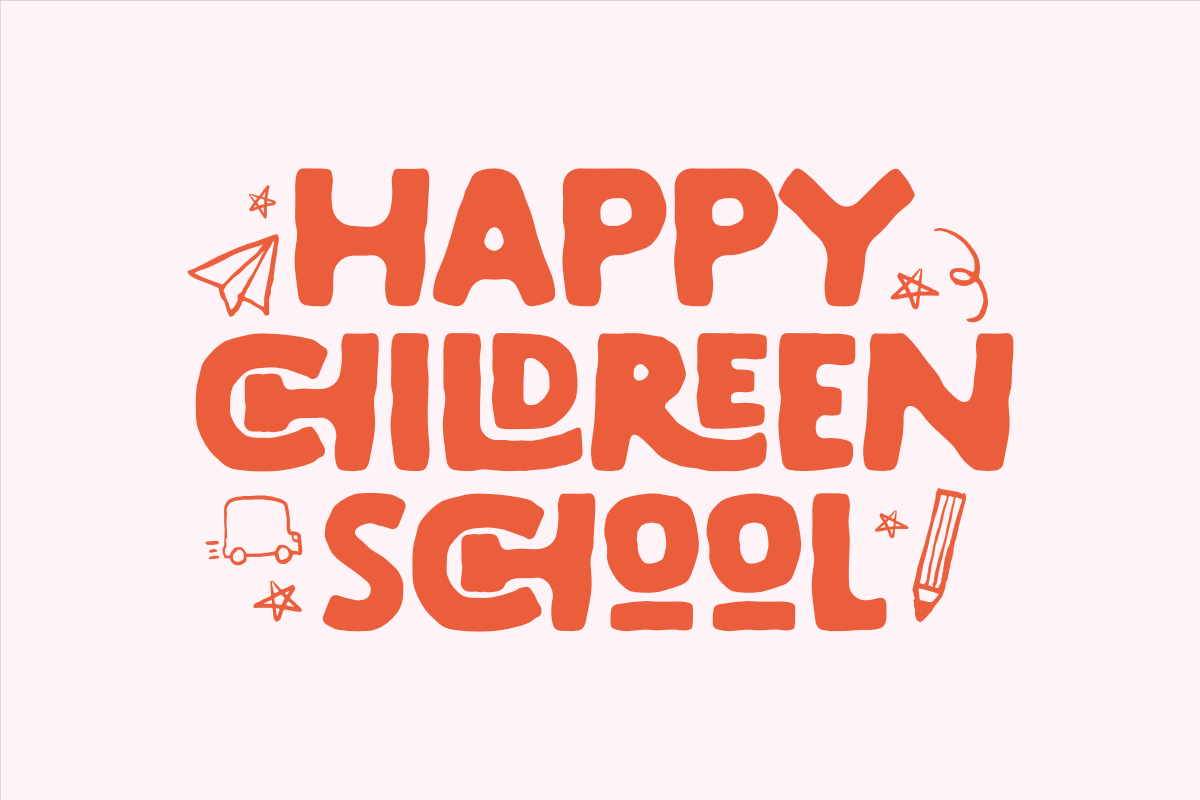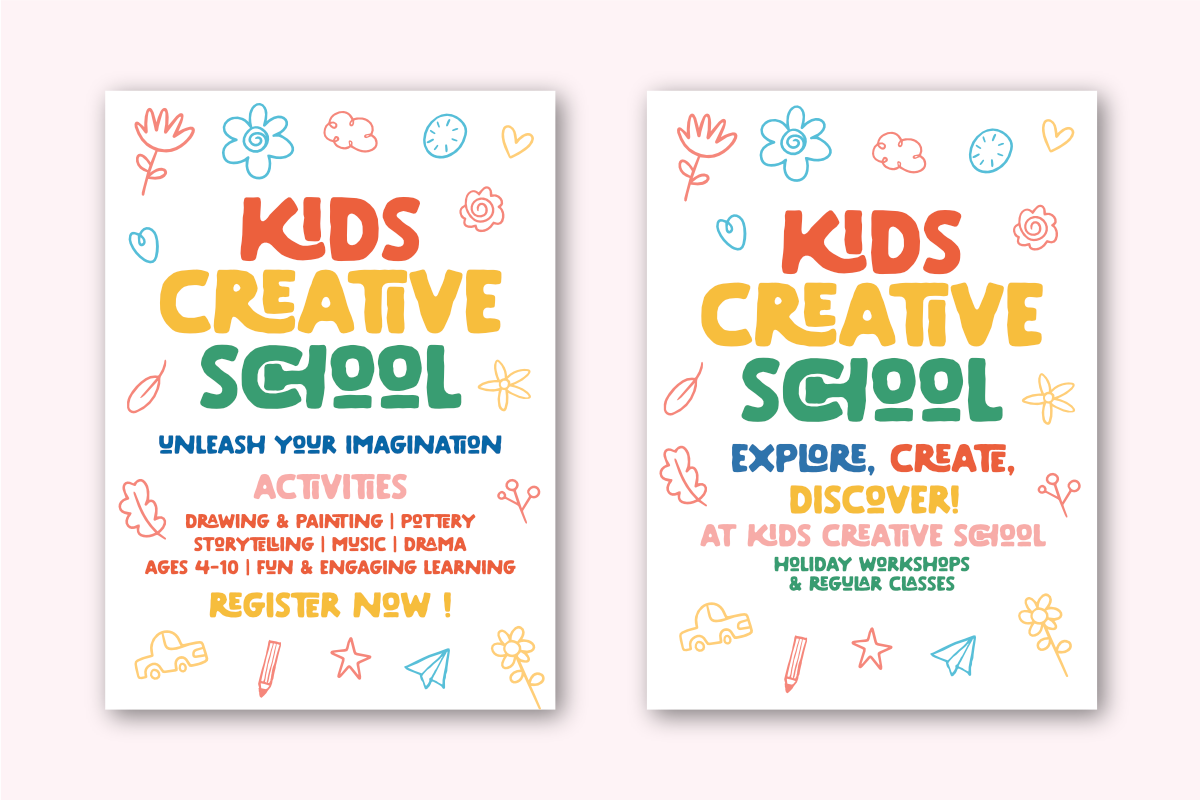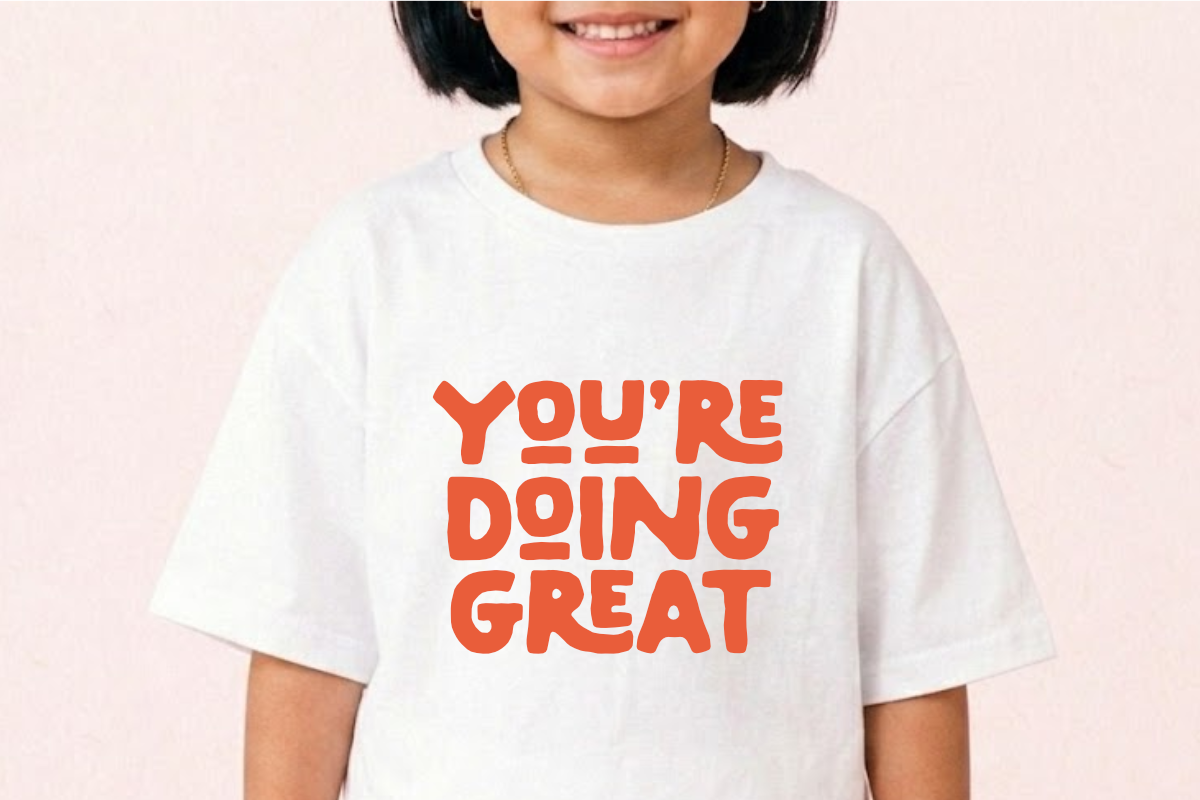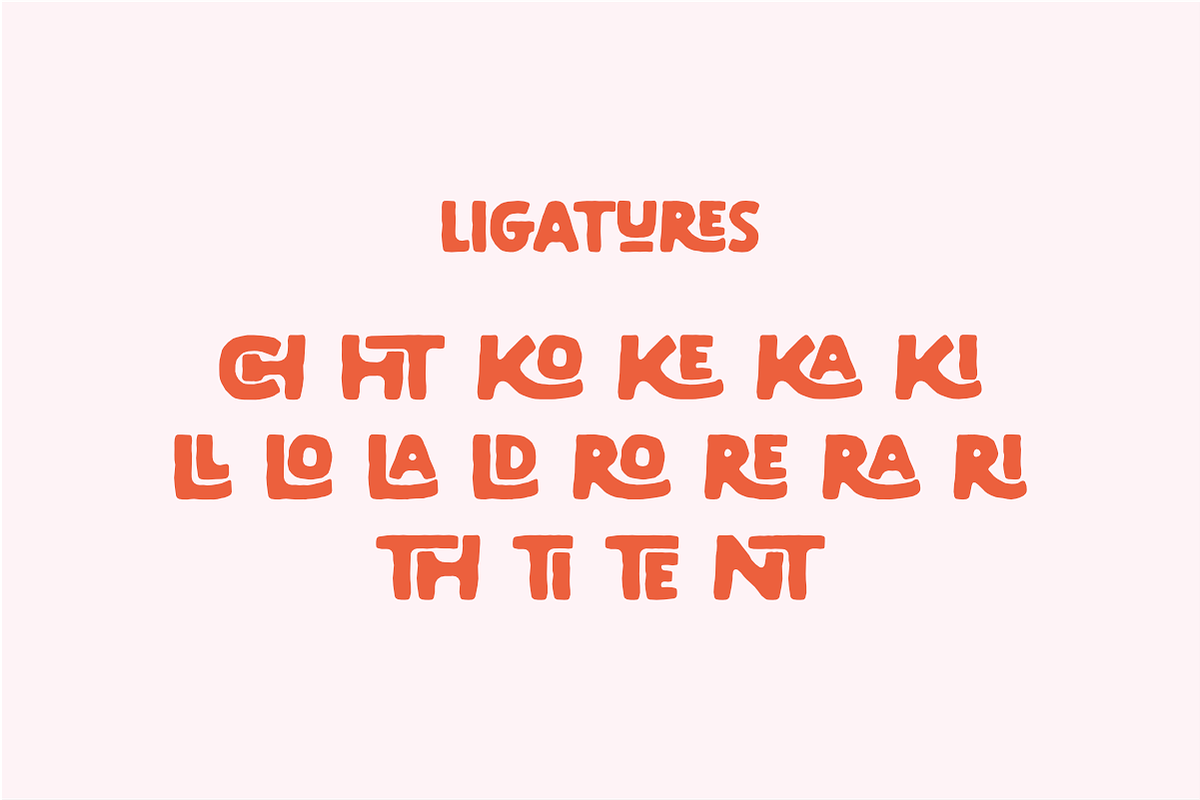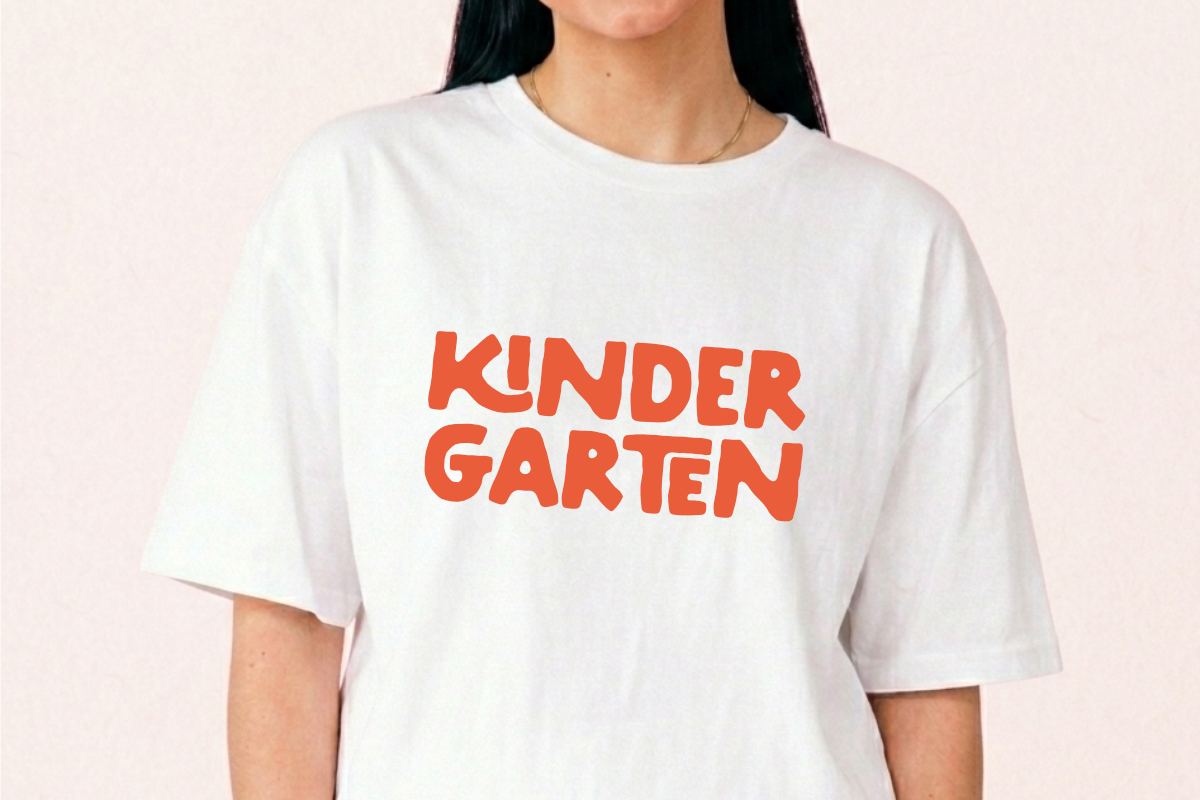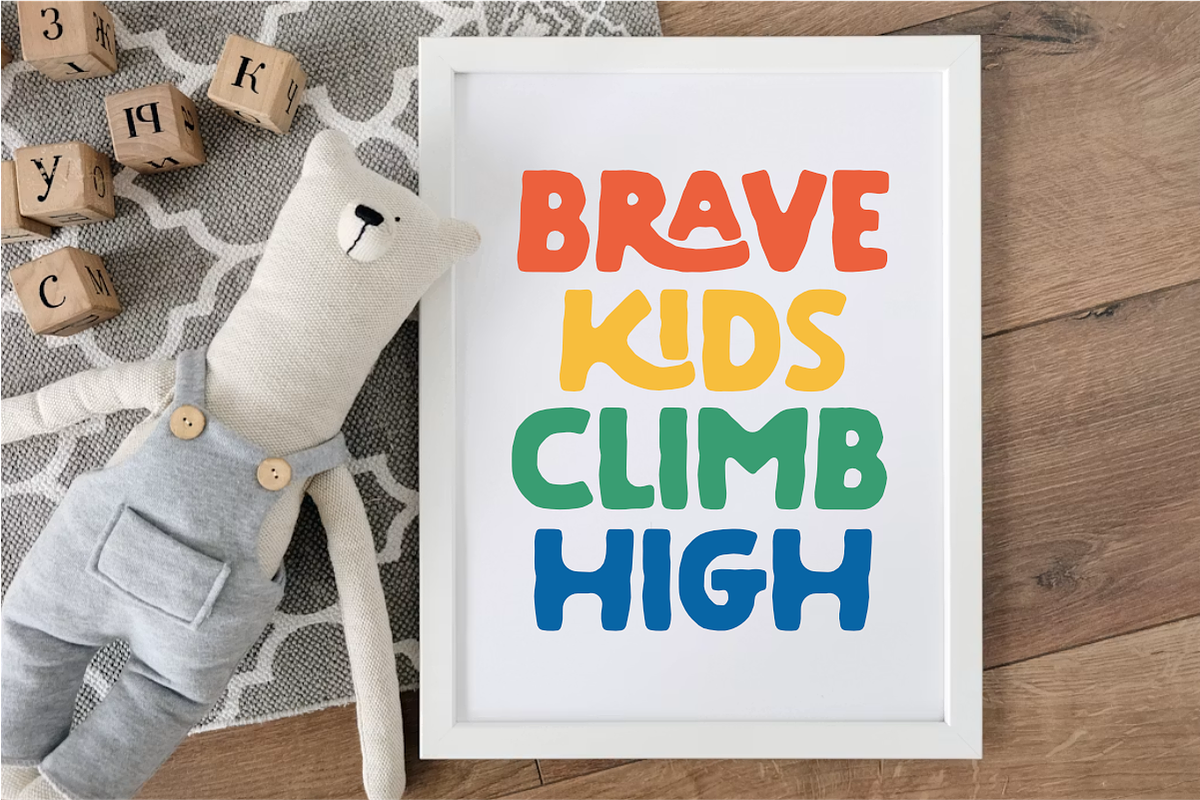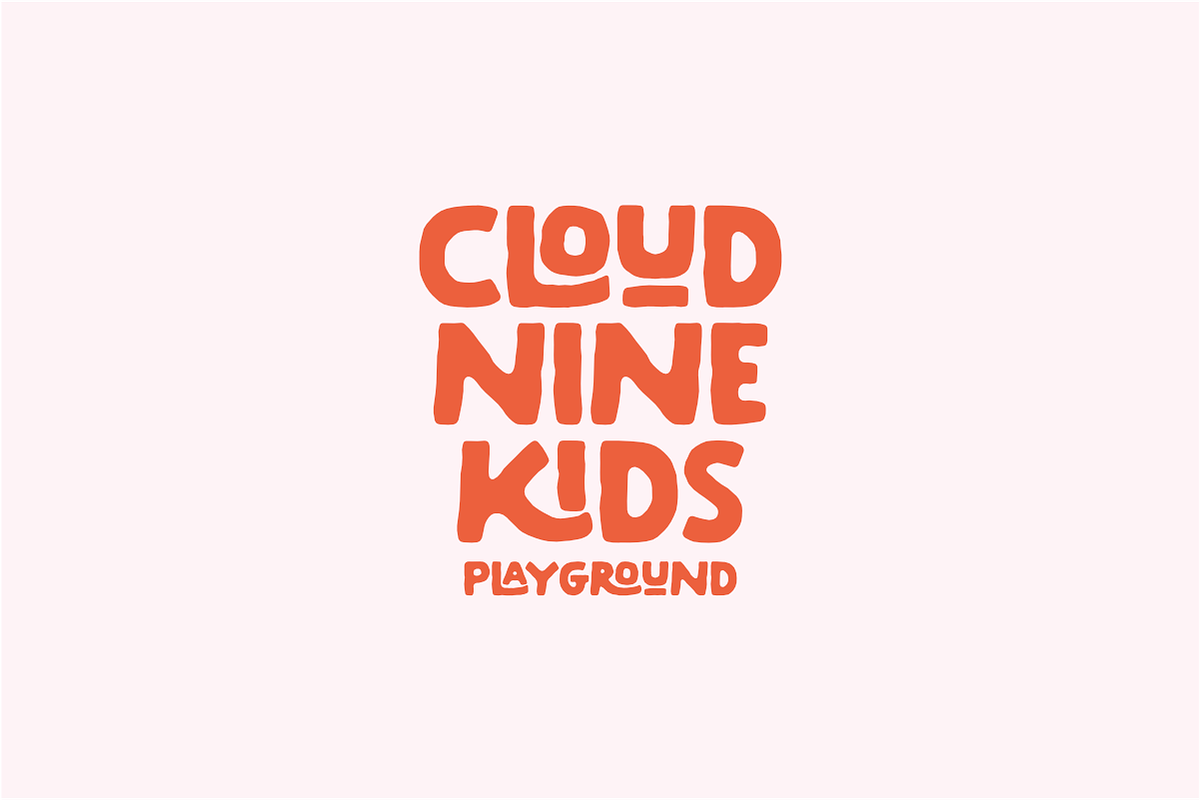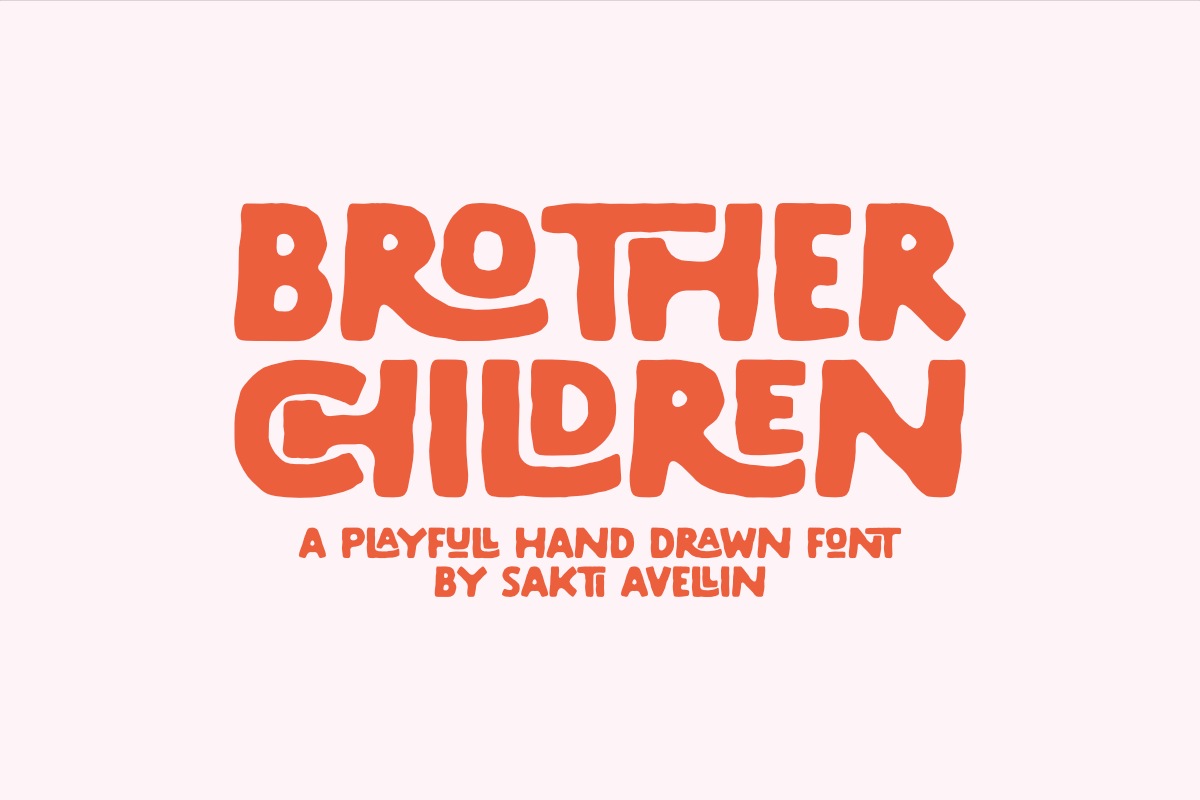
Brother Children - Display Font
Brother Children is a vibrant and playful hand drawn font designed to bring a joyful, organic energy to your creative projects. This bold display typeface features thick, bubbly letterforms with a whimsical, handcrafted flow, making it an ideal choice for children's branding, nursery decor, colorful stickers, school projects, and cheerful greeting cards. Its unique and approachable aesthetic ensures your designs feel personal, warm, and full of life. Whether you are creating toy packaging, kids' apparel, or fun social media graphics, Brother Children adds a delightful and creative touch to every design.